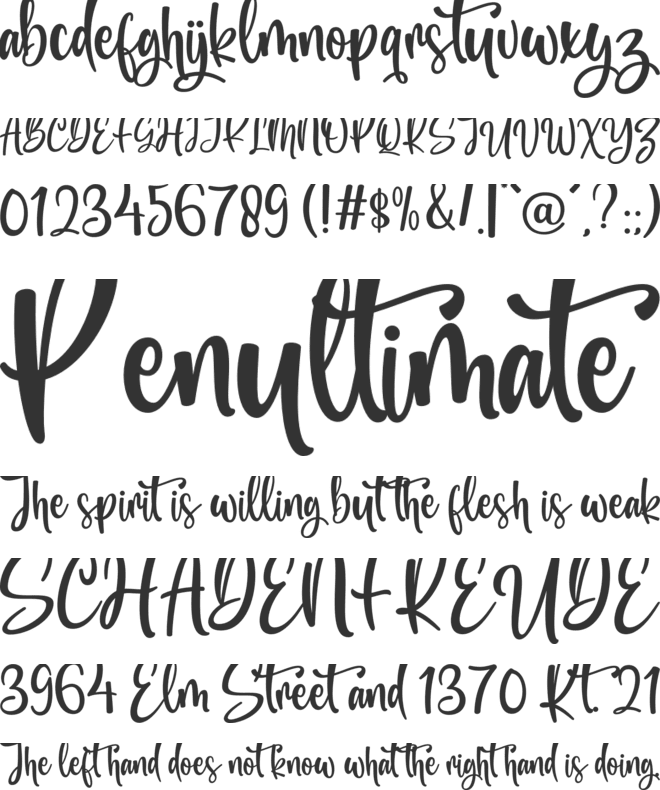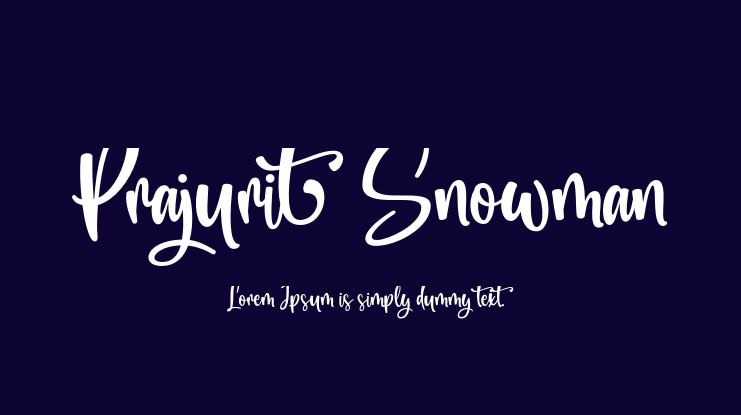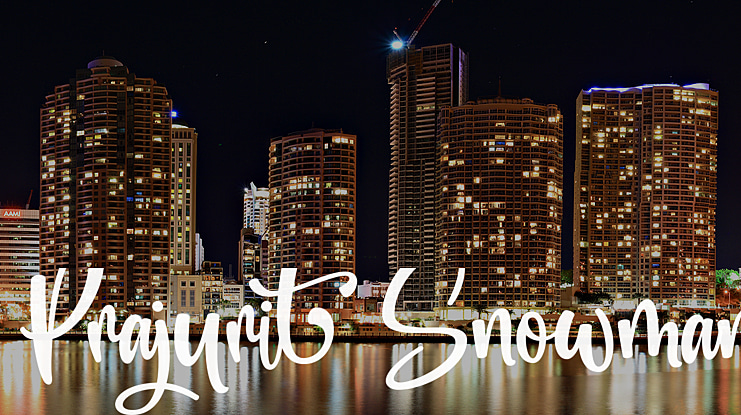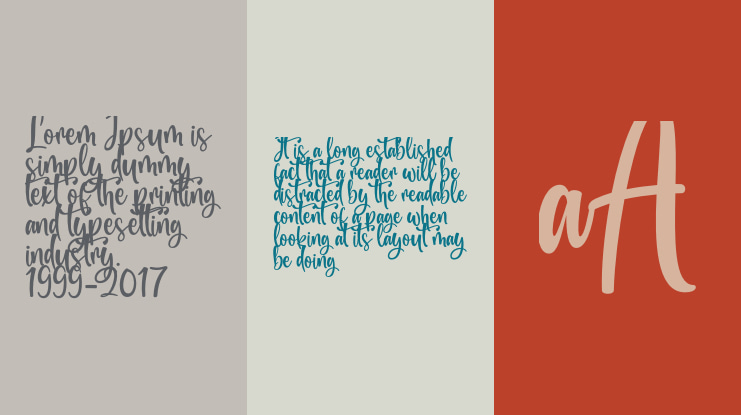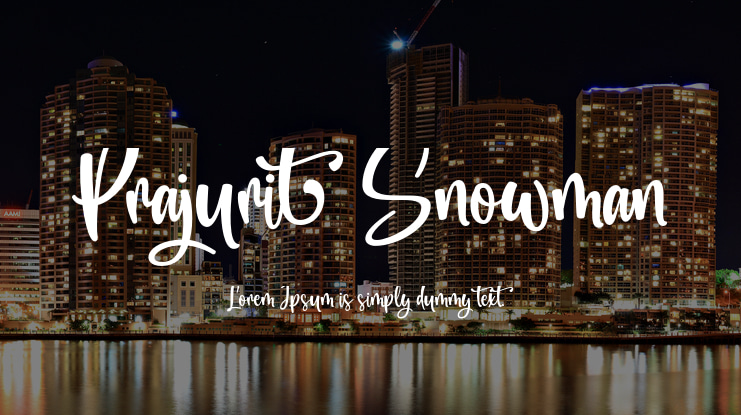
Prajurit Snowman Font
Prajurit Snowman is a beautiful and romantic handwritten font. It will look stunning on wedding invitations, thank you cards, quotes, greeting cards, logos, business cards, and any design that needs a handwritten touch.